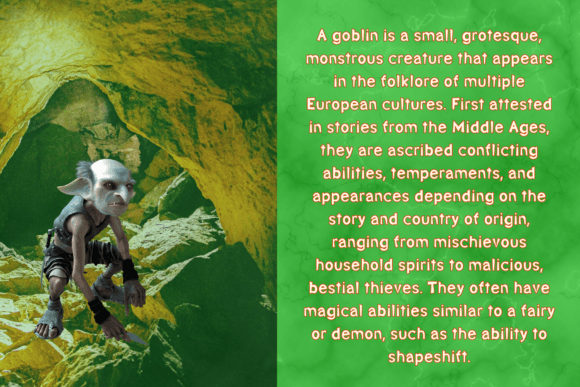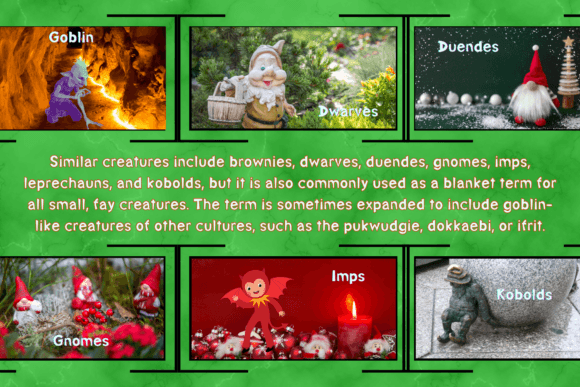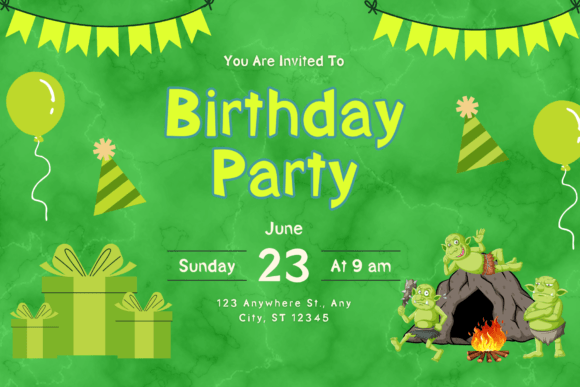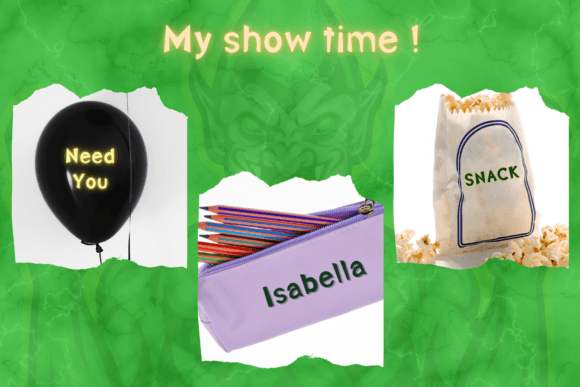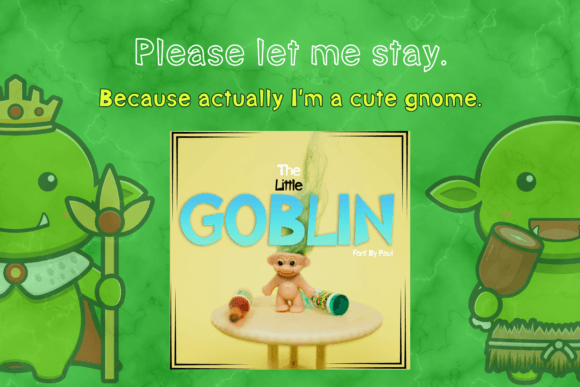
Goblins Font: A Whimsical Typeface Inspired by Mythical Creatures
In the realm of typography, fonts are often designed to evoke emotions, convey personalities, and tell stories. One such font that has captured the imagination of designers and crafters alike is the Goblins Font. Inspired by the mythical creatures of the same name, this font set is a unique blend of cuteness, mischief, and cunning.
The Mythical Inspiration Behind Goblins Font
Goblins, as mythical creatures, have been a part of folklore and literature for centuries. Often depicted as small, grotesque, and villainous beings, they have been featured in stories, fairy tales, and fantasy novels. However, the Goblins Font takes a different approach to these creatures. Instead of focusing on their malevolent nature, the author of the font aimed to convey the cuteness and charm of gnomes, making them endearing yet mischievous.
Design Characteristics of Goblins Font
The Goblins Font is a carefully crafted typeface that embodies the playful and whimsical nature of goblins. The font features:
- Rounded edges and curves: The font’s rounded edges and curves give it a soft, cuddly feel, making it perfect for designs that require a touch of whimsy.
- Mischievous flair: The font’s lines and strokes have a subtle mischievous flair, reflecting the cunning nature of goblins.
- Legibility and readability: Despite its playful nature, the Goblins Font remains highly legible and readable, making it suitable for a wide range of design applications.
Use Cases for Goblins Font
The Goblins Font is a versatile typeface that can be used in various design projects, including:
- Children’s books and educational materials: The font’s playful and whimsical nature makes it perfect for children’s books, educational materials, and other kid-friendly content.
- Branding and packaging: The Goblins Font can add a touch of personality to brand identities, packaging, and labeling.
- Digital and print media: The font can be used in digital media, such as social media graphics, blog posts, and video scripts, as well as in print materials, like posters, flyers, and brochures.
Why Designers and Crafters Love Goblins Font
Designers and crafters have fallen in love with the Goblins Font for several reasons:
- Unique personality: The font’s distinctive personality sets it apart from more traditional typefaces.
- Emotional connection: The font’s whimsical nature creates an emotional connection with readers, making it perfect for designs that aim to engage and entertain.
- Flexibility: The Goblins Font can be used in a wide range of design applications, from digital media to print materials.
Tips for Using Goblins Font Effectively
To get the most out of the Goblins Font, consider the following tips:
- Use it sparingly: The font’s playful nature can be overwhelming if overused. Use it sparingly to add emphasis and create visual interest.
- Pair it with complementary fonts: Combine the Goblins Font with complementary fonts to create visual contrast and add depth to your design.
- Experiment with colors and textures: The font’s whimsical nature lends itself well to creative experimentation with colors and textures.
The Goblins Font is a unique and captivating typeface that has captured the hearts of designers and crafters worldwide. Its playful, whimsical nature makes it perfect for designs that require a touch of personality and charm. Whether you’re working on a children’s book, branding project, or digital media, the Goblins Font is sure to add a dash of magic to your design.